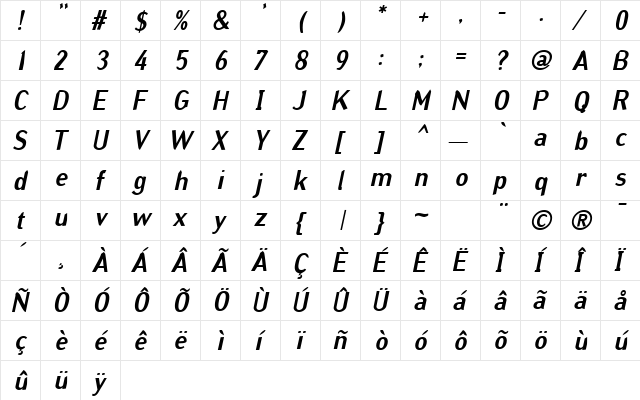
Grinder Italic Font Preview
Grinder Italic
Grinder Italic Font Details
Design Context for Grinder Typeface
Grinder is a composed and adaptable typeface that performs quietly and consistently across a wide range of design contexts. The dynamic lean of this cut emphasises speed and emphasis in any layout.
Pro Tip: Try Grinder for annotation and caption copy alongside an upright companion — the contrast in angle creates a dynamic but ordered typographic system.